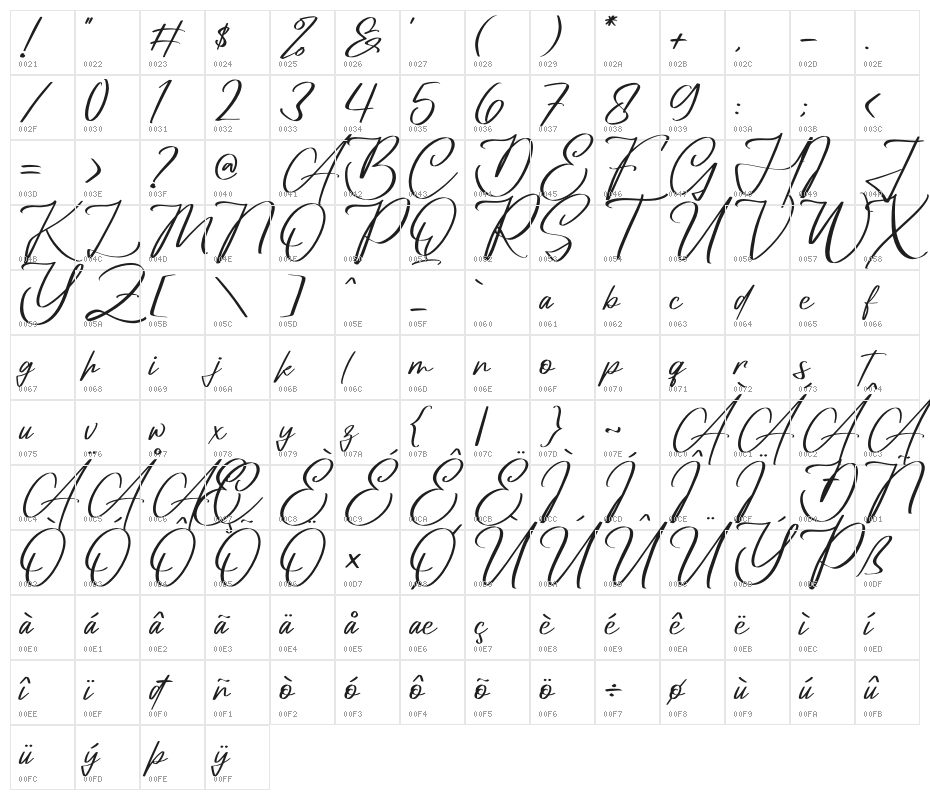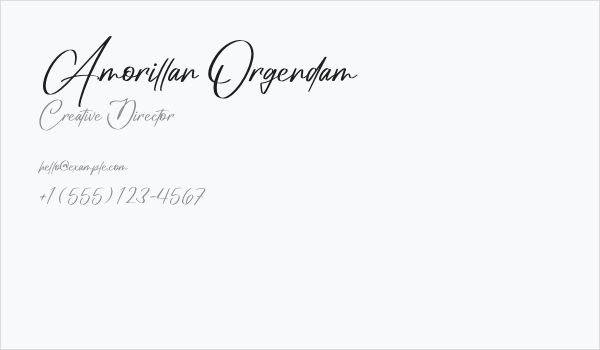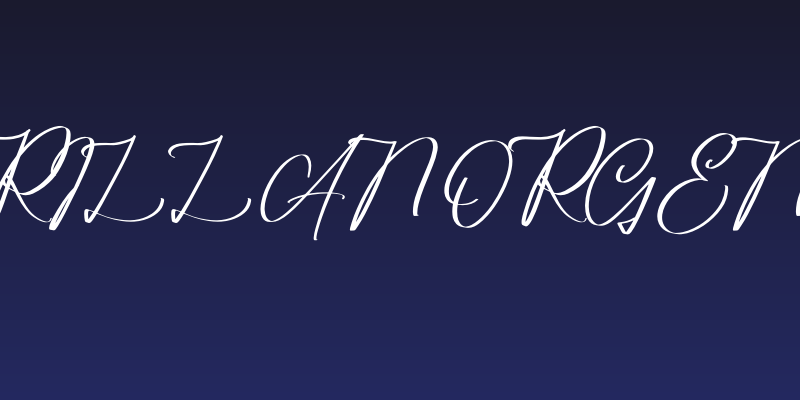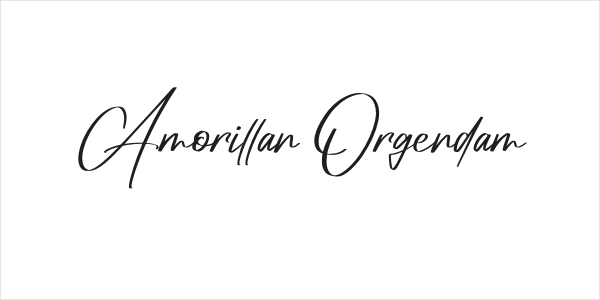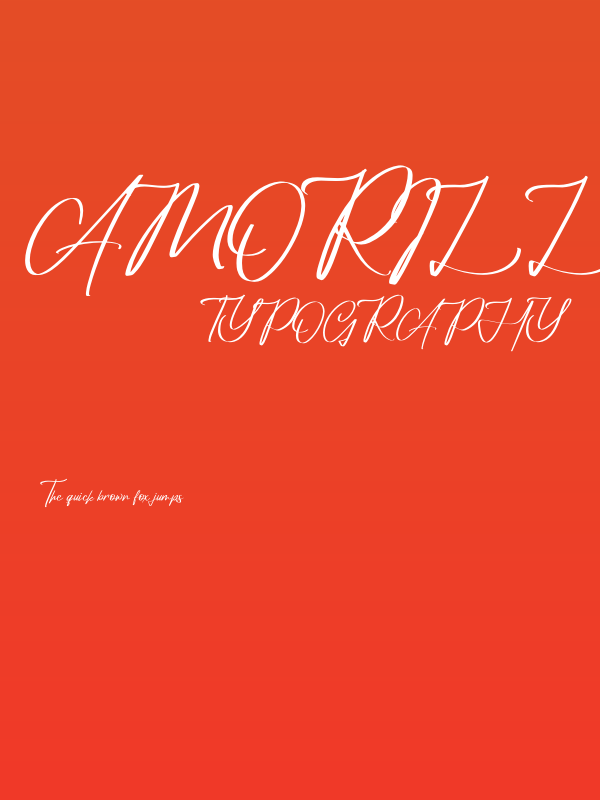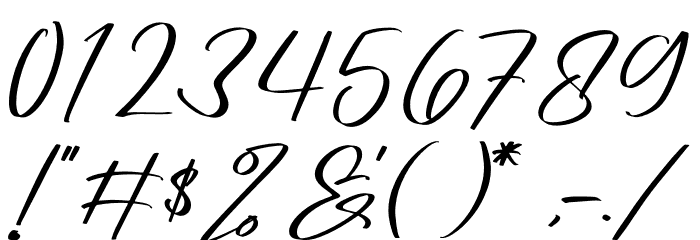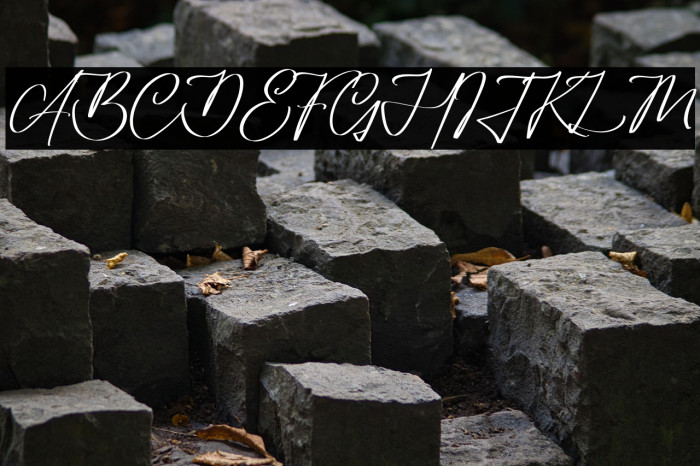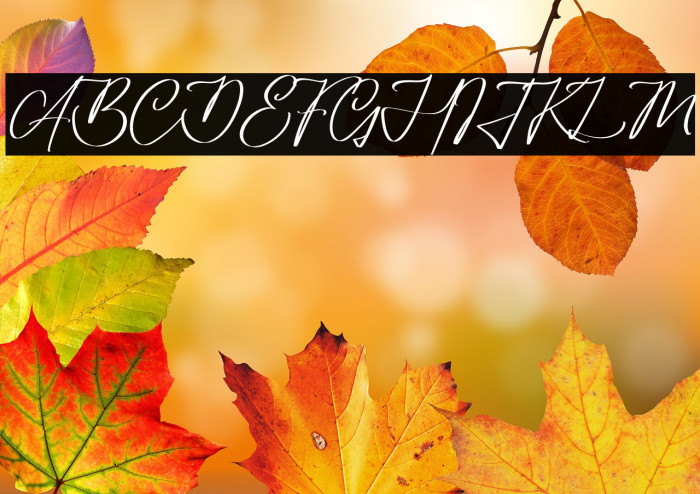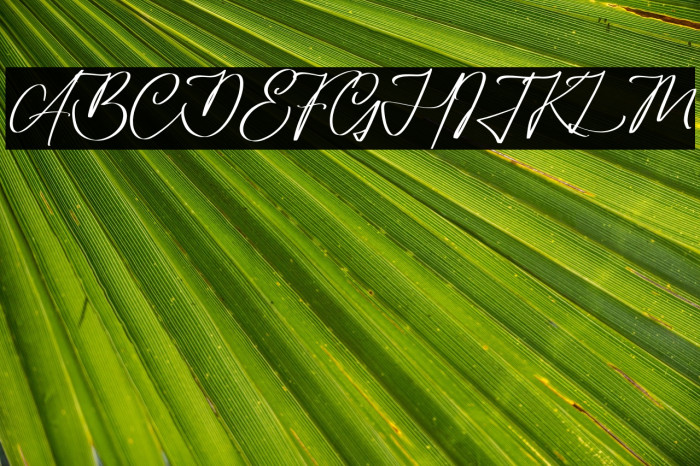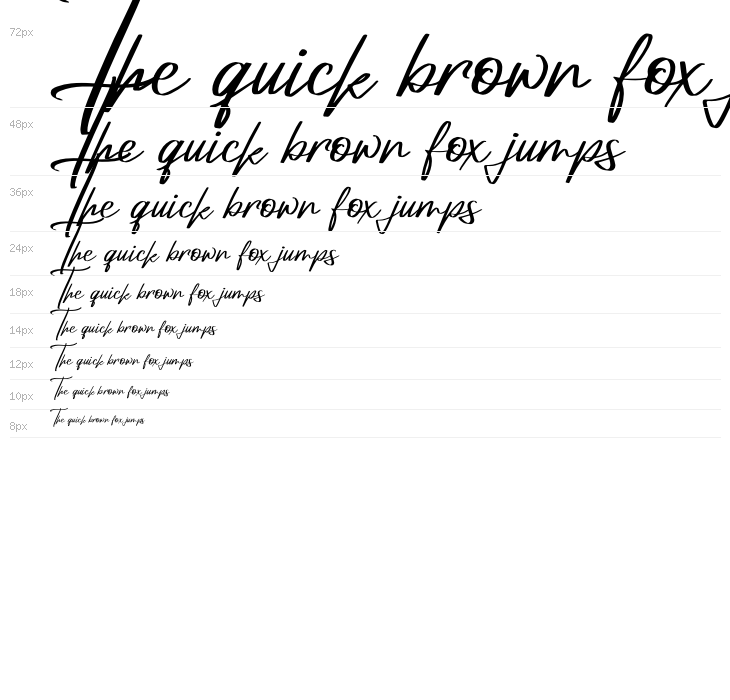
Amorillan Orgendam Font
Amorillan Orgendam Description
This font exudes a dynamic and fluid style, characterized by its elegant, cursive script. The letters are interconnected with smooth, flowing lines that give it a handwritten appearance. Uppercase letters are slightly more elaborate, with decorative swashes that enhance their visual appeal. The lowercase letters maintain a consistent rhythm and balance, making the text easy to read despite its decorative nature. Numbers and special characters are crafted with the same attention to detail, ensuring a cohesive look across all elements. The overall design is both sophisticated and approachable, making it suitable for a variety of creative applications.
| Overall Style | Elegant, Handwritten |
| Use Case | Logos, Invitations, Decorative text |
| Proposed Projects | Ideal for wedding invitations, greeting cards, branding projects, and elegant packaging designs. |